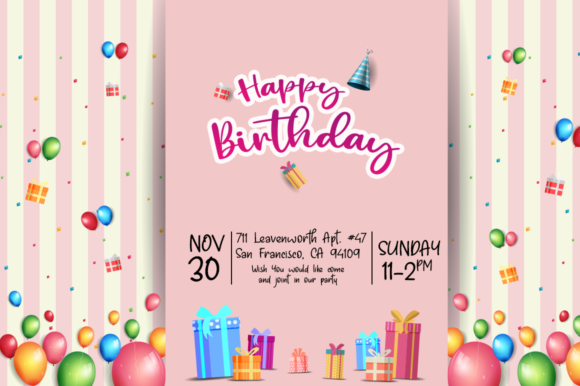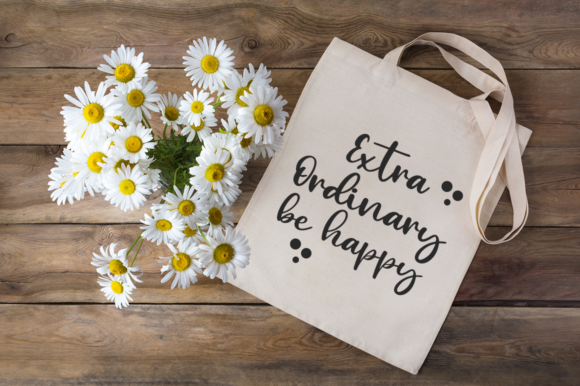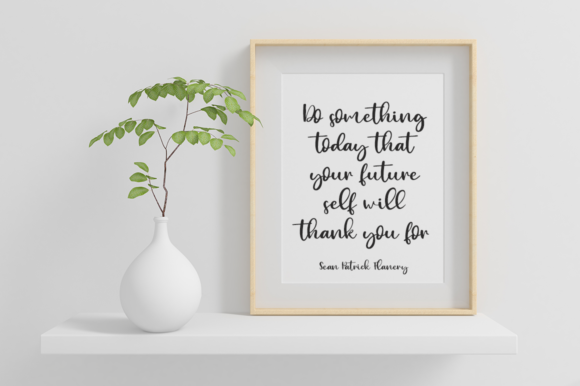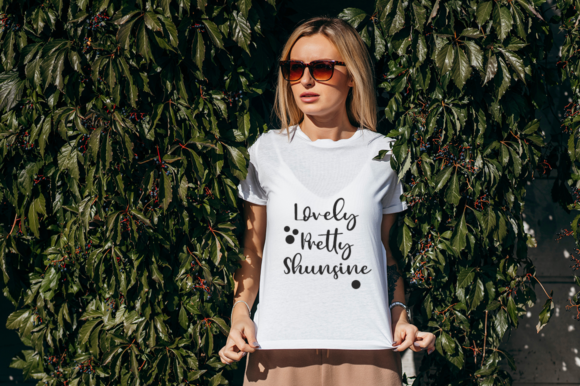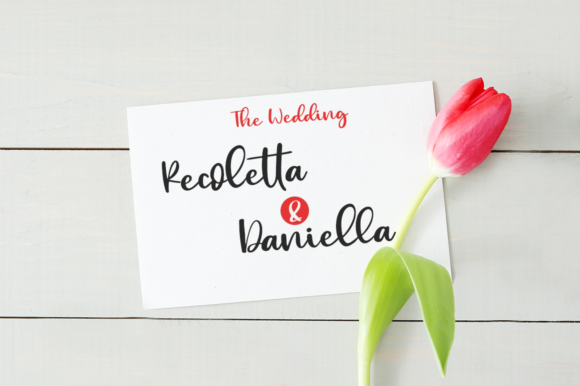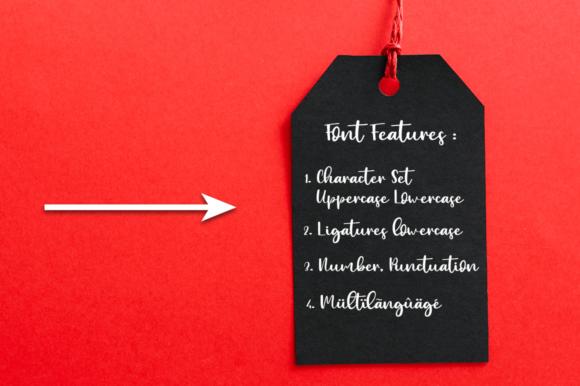
Discovering the Perfect Script for Your Special Moments
Have you ever found yourself rummaging through your old scrapbook, reminiscing about cherished memories from years past? For me, it’s the birthday cards and wedding invitations that bring a smile to my face. The handwritten notes, the colorful doodles, and the heartfelt messages all come together to create a sense of nostalgia and love. And it’s in these moments that I realized the importance of having the right font to convey our emotions.
Enter Birthday Dream Font, a delightful handwritten script that embodies the essence of joy and romance. This charming font is perfect for creating personalized wedding invitations, heartfelt birthday cards, or any design that requires a touch of warmth and elegance. With its dainty and playful characteristics, Birthday Dream Font is a valuable addition to any designer’s toolkit, offering a unique way to express love and appreciation in a beautiful and creative way.
Birthday Dream Font Key Features
- Font Style: Whimsical, cursive script with a dreamy feel, perfect for birthday celebrations and children’s parties.
- Unique Characteristics: The font features flowing lines, swashes, and flourishes that evoke a sense of magic and wonder, making it ideal for birthday invitations, party decorations, and other celebratory materials.
Birthday Dream Font Review
Overall, I think the Birthday Dream Font is a unique and playful choice for any project, especially those related to birthdays, celebrations, or whimsical themes. ✨ The font’s quirky design elements and cursive flair can add a touch of magic to your designs. ✨ I also appreciate the font’s availability in various weights, making it easier to use in different contexts.
However, I do have some reservations about the font’s limitations. ⚠️ The font may not be suitable for formal or professional projects, as it can come across as overly whimsical or childish. ⚠️ Additionally, the font’s size and legibility may vary depending on the screen resolution and device being used.
Here are some specific strengths and weaknesses I’ve observed:
- Quirky design elements add a touch of whimsy
- Available in various weights for versatility
- May not be suitable for formal or professional projects
- Legibility may vary depending on screen resolution and device
Overall, I think the Birthday Dream Font is a fun and creative choice for the right project. While it may not be suitable for all contexts, it can add a unique touch to designs that need a playful and celebratory feel.
The Birthday Dream Font is ideal for creating eye-catching birthday invitations, party decorations, and social media graphics. To get the most out of it, use it in combination with bright colors and playful graphics.